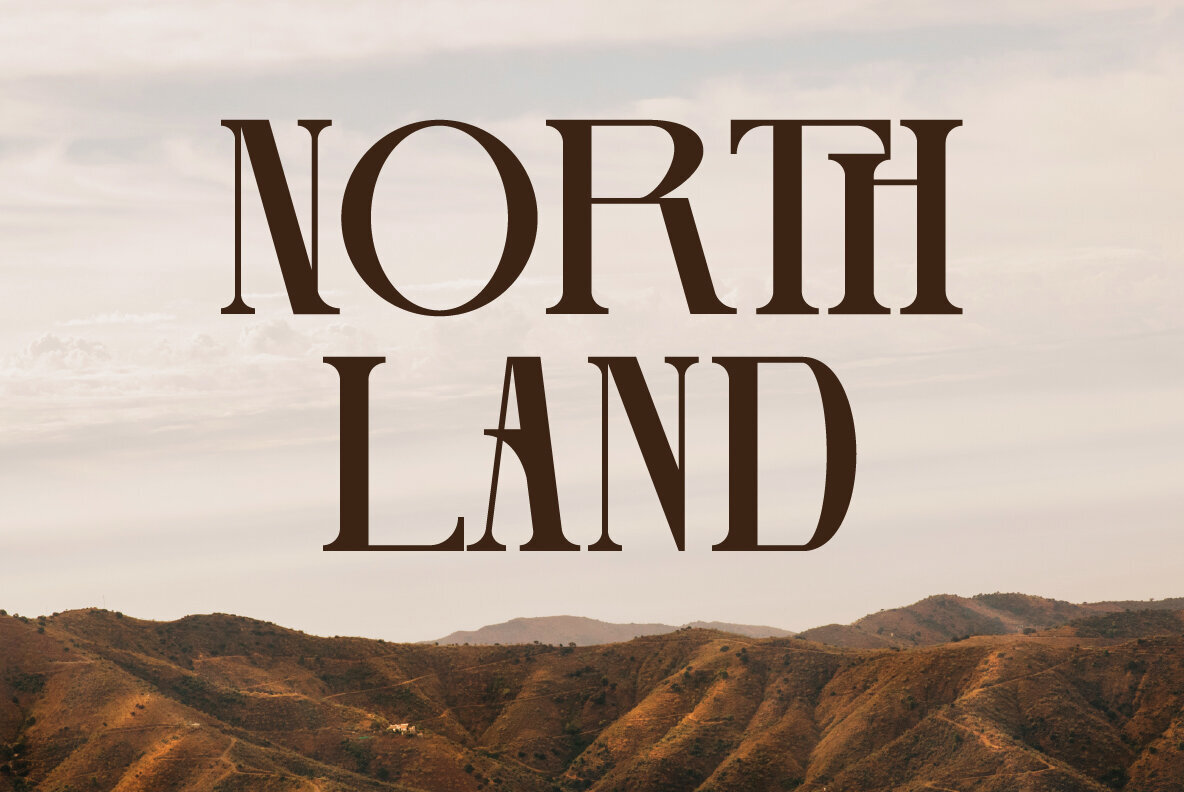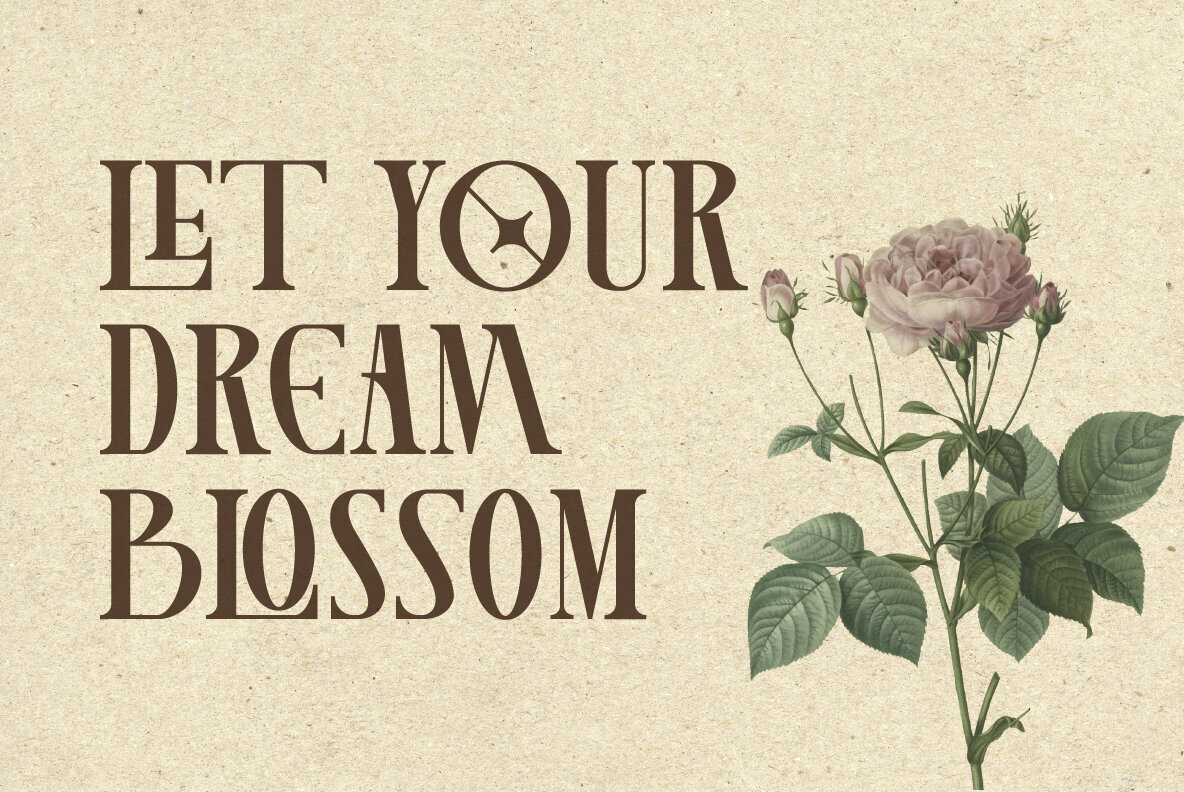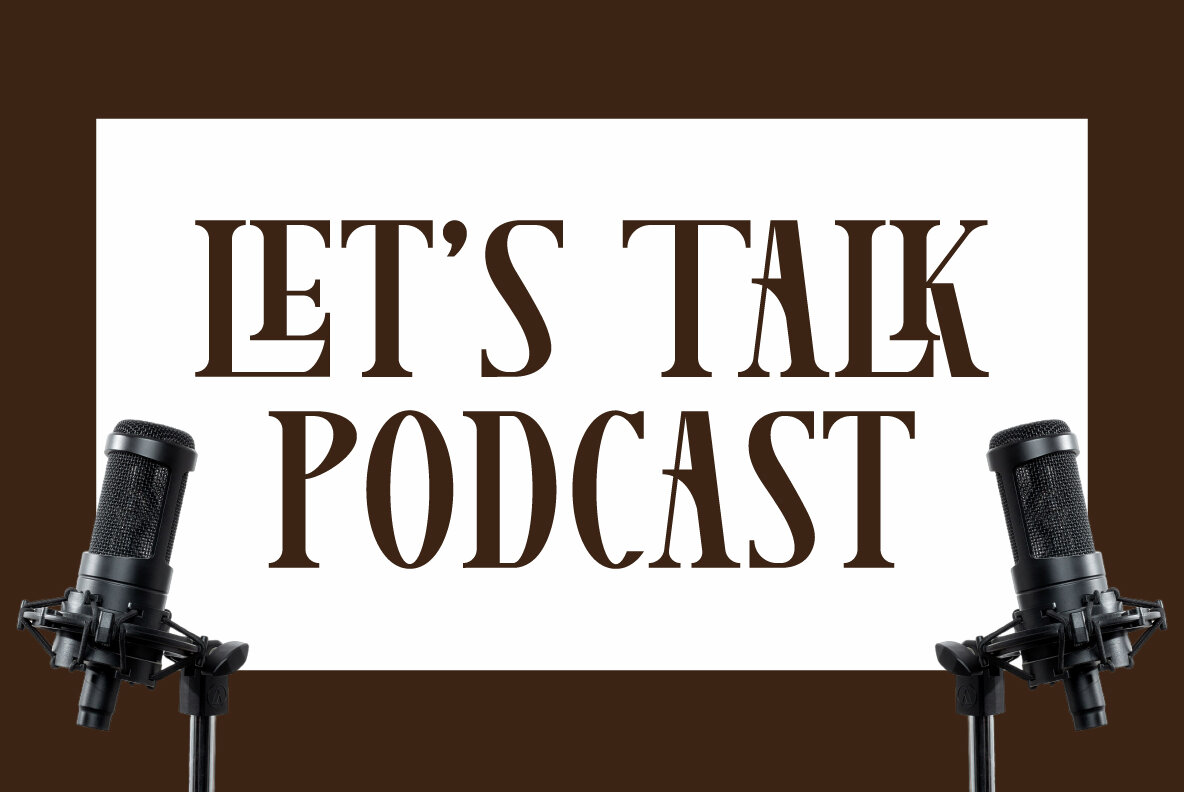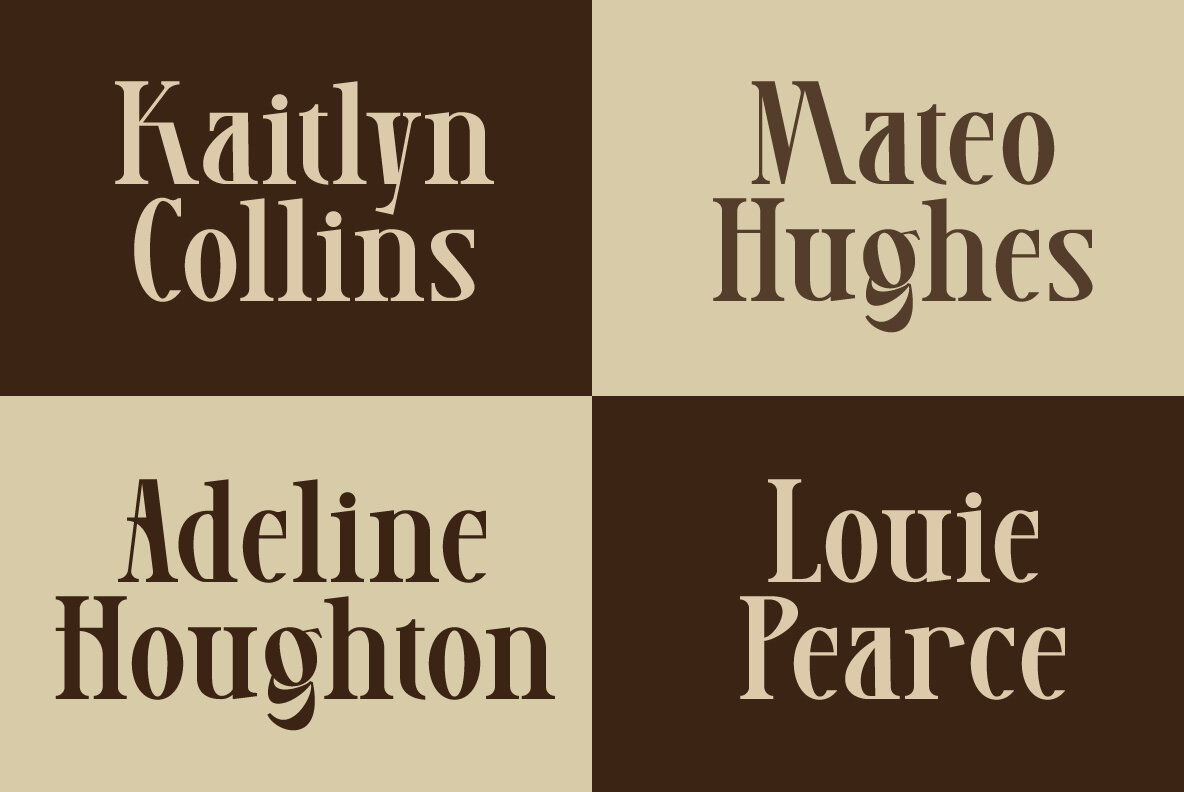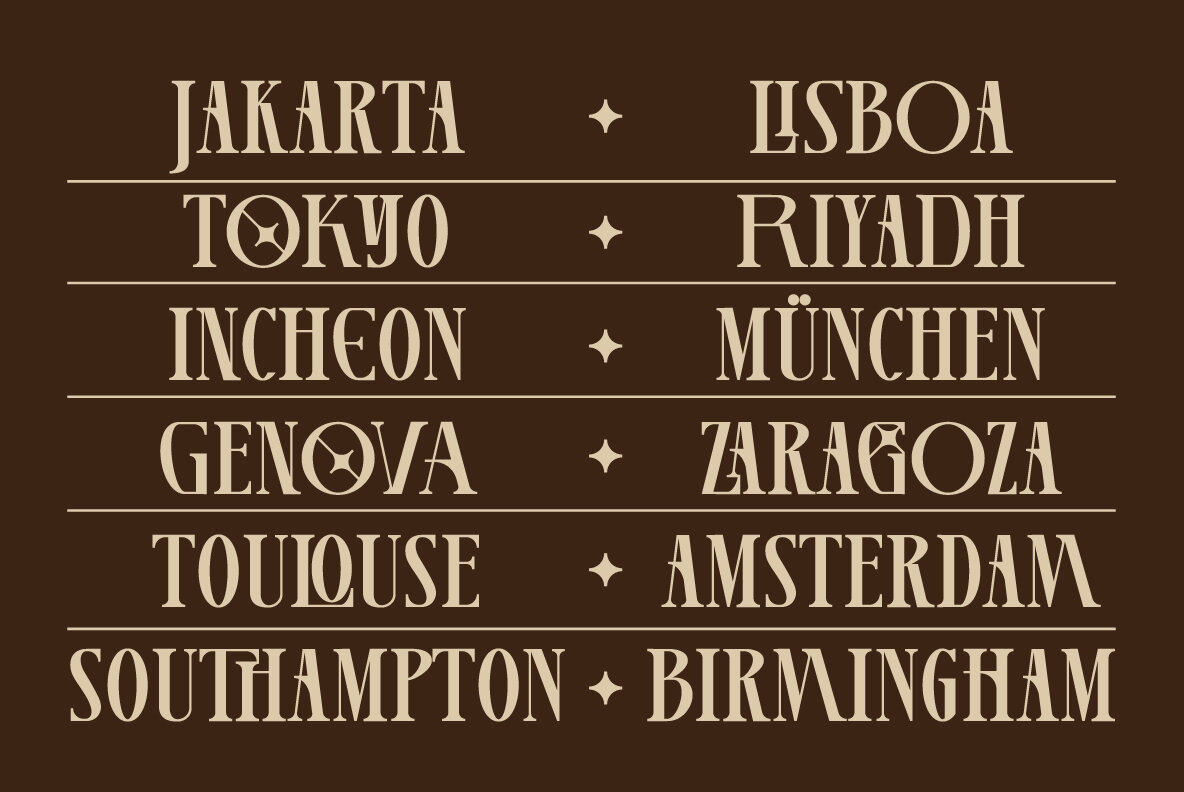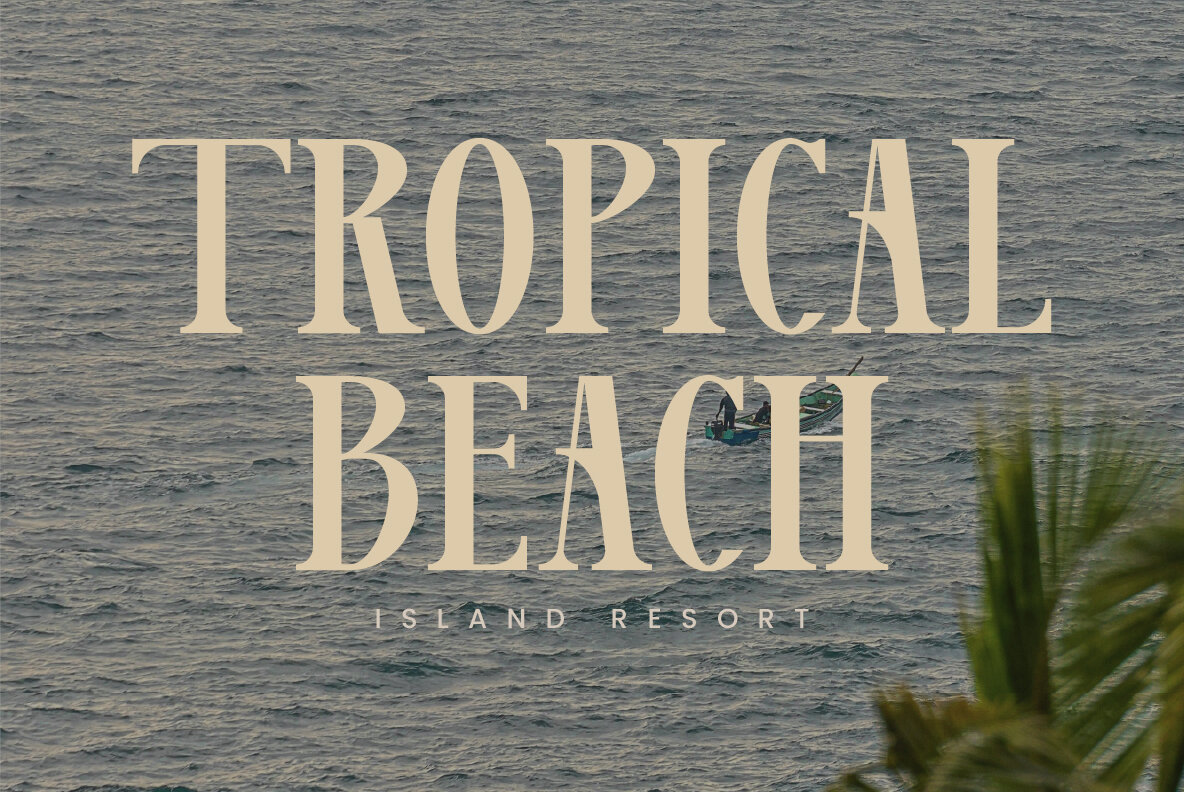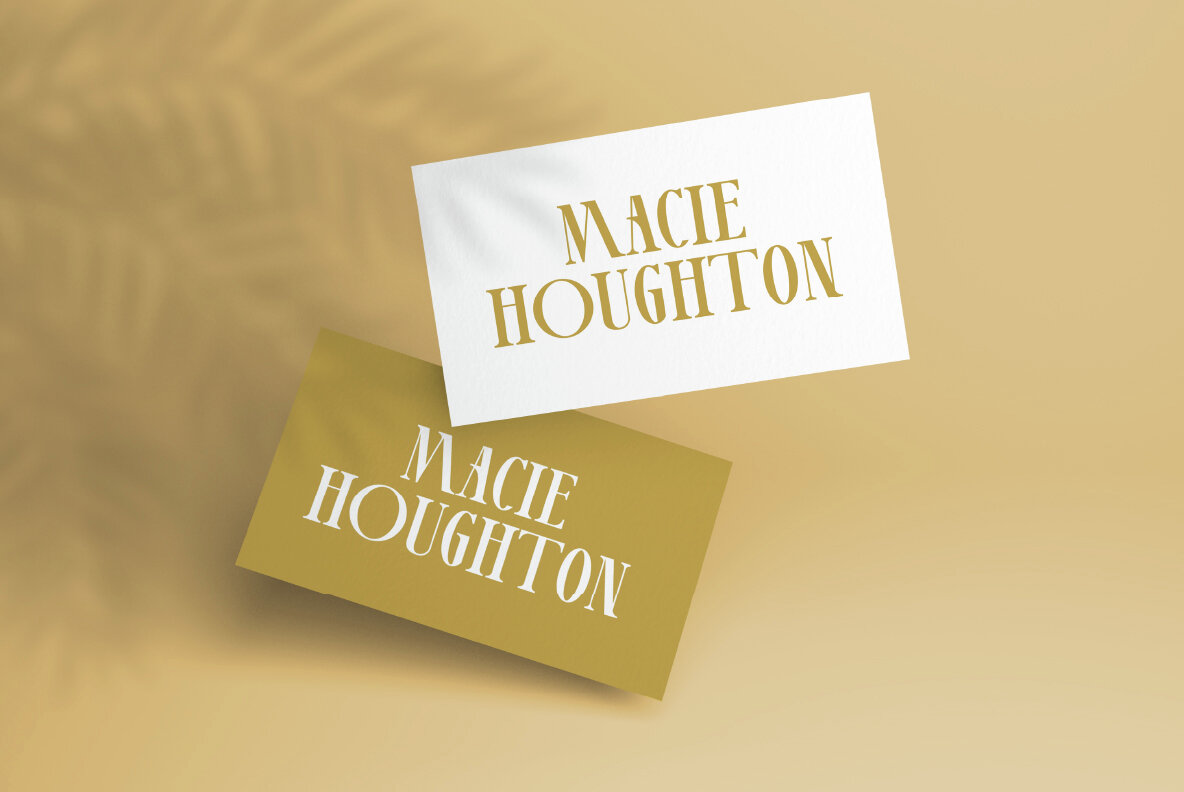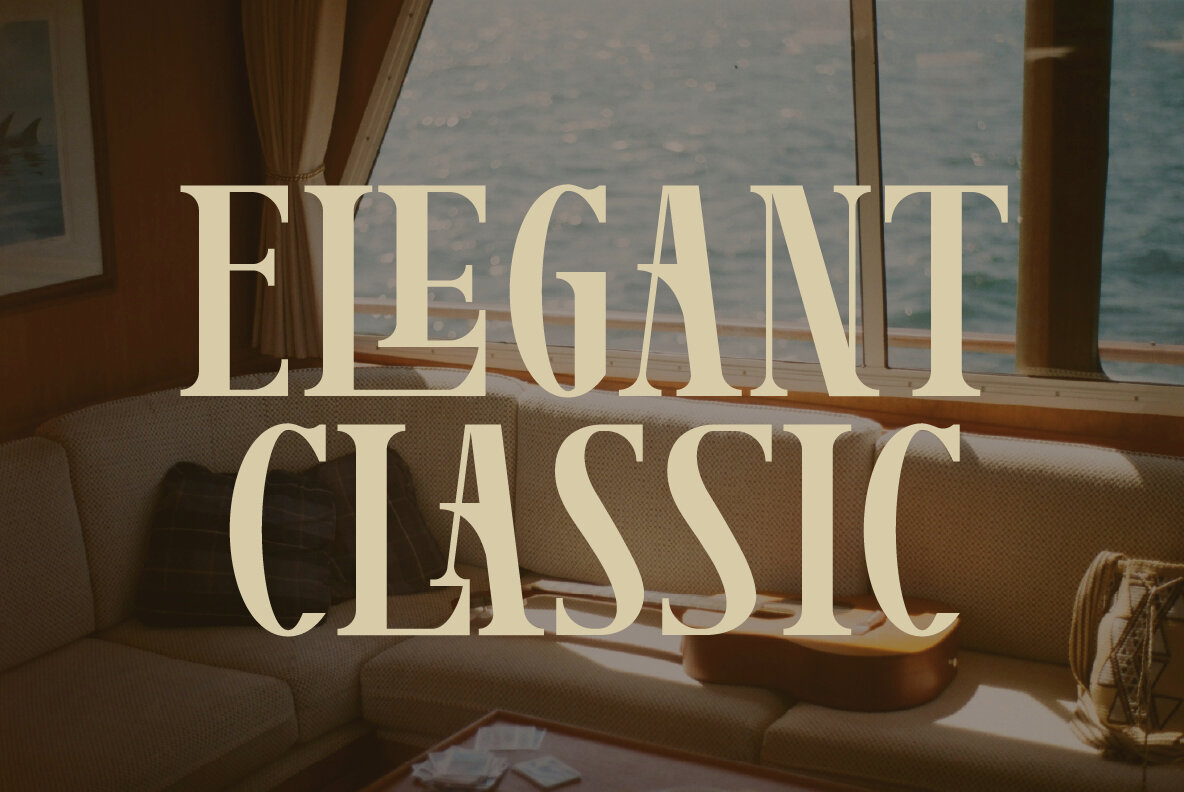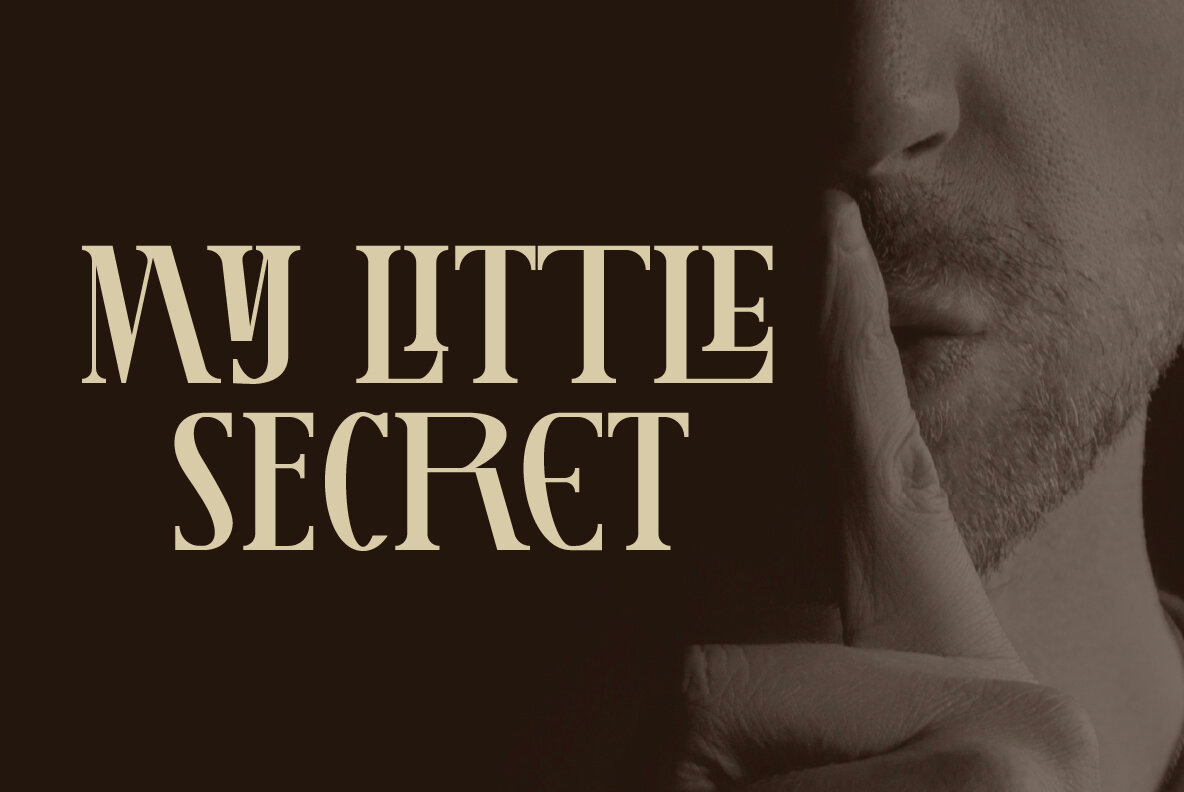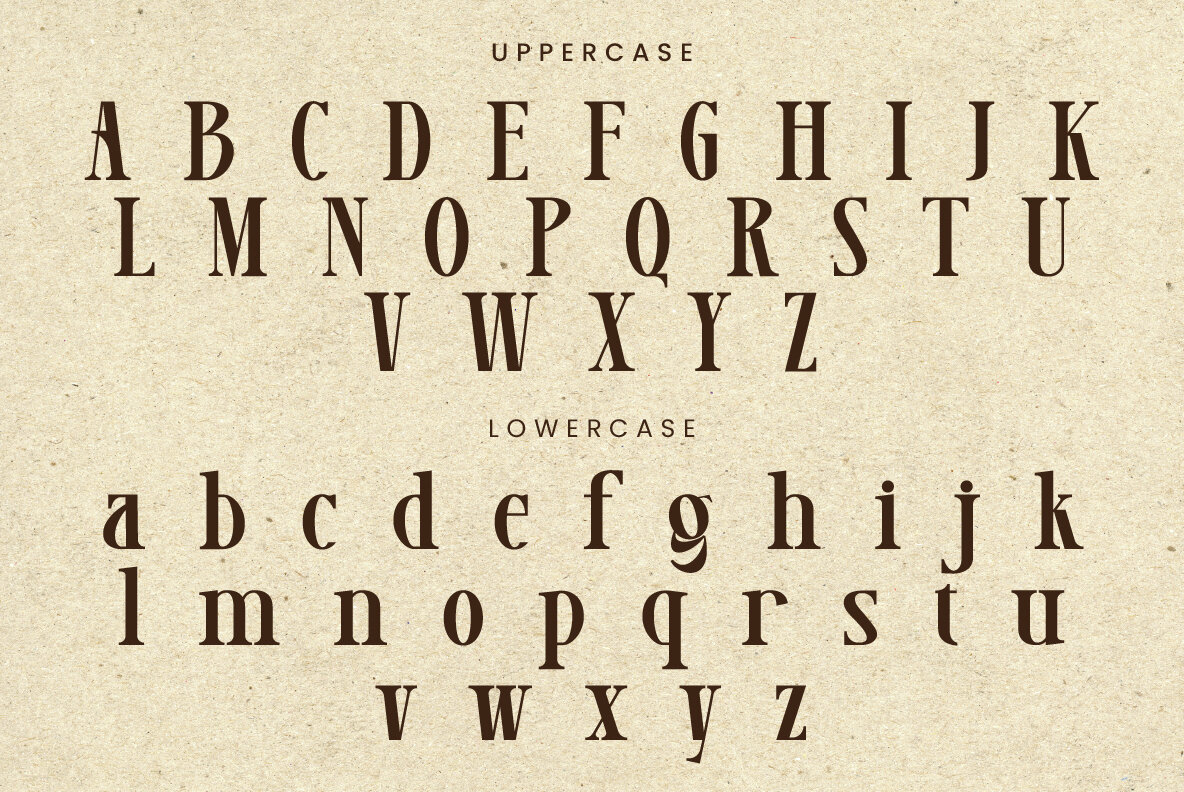
Lamoonze Font
Lamoonze Regular
Lamoonze is a refined and bold serif font designed by Randi Irvan Nudin. Its sophisticated and modern appearance makes it ideal for logos, branding projects, invitations, stationery, wedding designs, and social media content. PUA encoding allows easy access to all glyphs.
Key Features:
- Alternate Characters
- Numbers and Punctuation